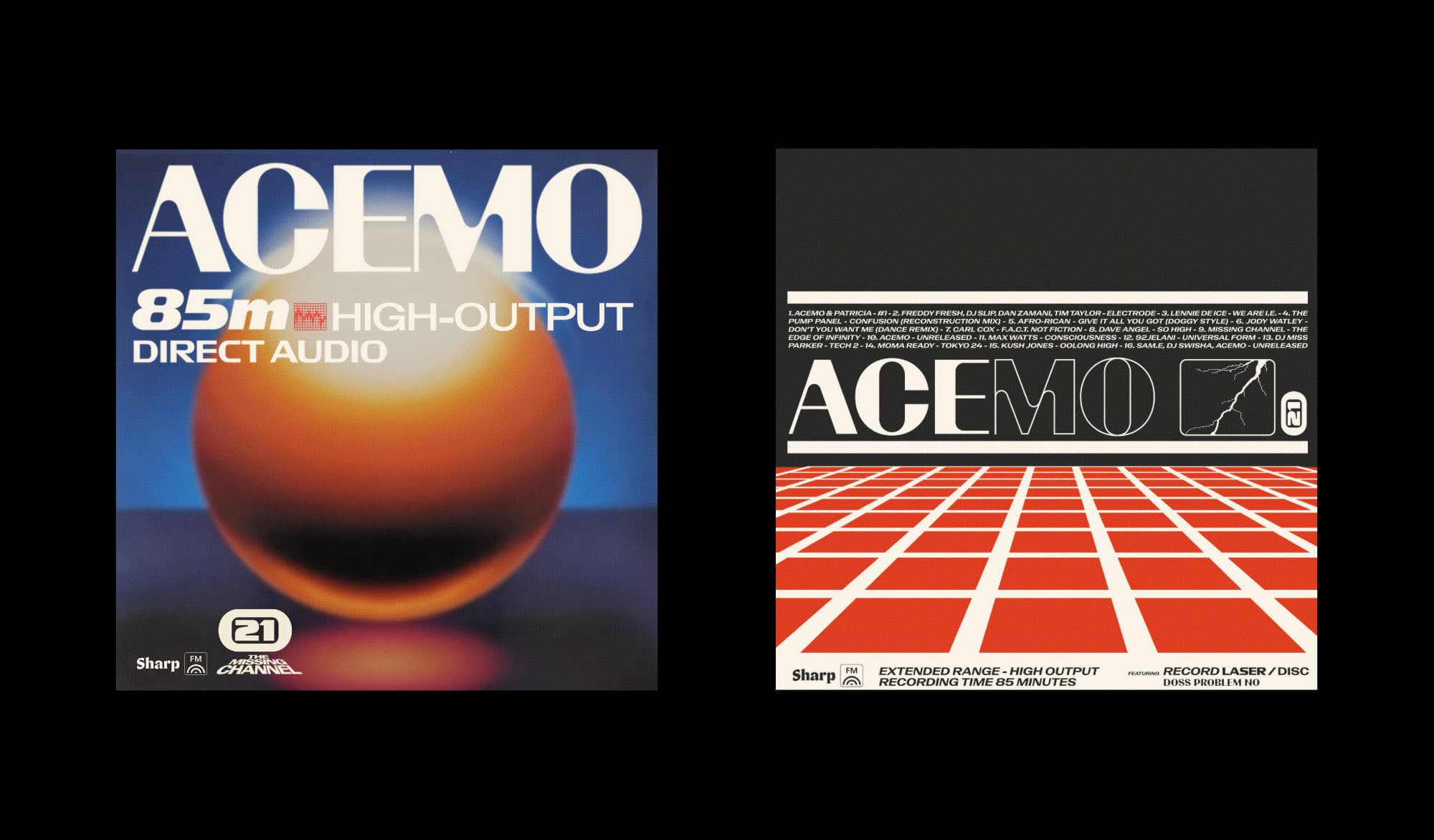
To celebrate the release of the Record Superfamily, Sharp FM 021 comes courtesy of AceMo, one of NYC’s most prolific producers and DJs, who has been consistently pushing the boundaries of NYC’s contemporary club sound. Appropriately, Ace recorded this mix live: its high octane energy combines razor sharp edits with a human-touch looseness that leans into Record’s themes and design.
Ecstatically weaving through ‘80s and ‘90s acid and techno via London, Detroit, and New York, Ace finally jumps back to the present to highlight some of his closest collaborators like MoMA Ready and Swisha, while peppering in some unreleased material of his own. Cultural omnivores will perk up at cinematic nods to Ghost in the Shell and Blade, and club music aficionados will recognize Tim Taylor and Robert Hood’s undeniable influence throughout.
Designed by Johann Mossé and Quentin Berthelot of ImageFormat, Record has been published by Sharp Type in 2025 as two distinct families. Record Laser plays louder and sharper, while Record Disc possesses a more refined aesthetic. Taken together, the families are two sides of the same disc, fundamentally connected but offering different, if related, sensibilities.
Our first mix of 2025 is a testament to Record’s retro-futurist ethos and, like Record itself, will play beautifully in any number of contexts.